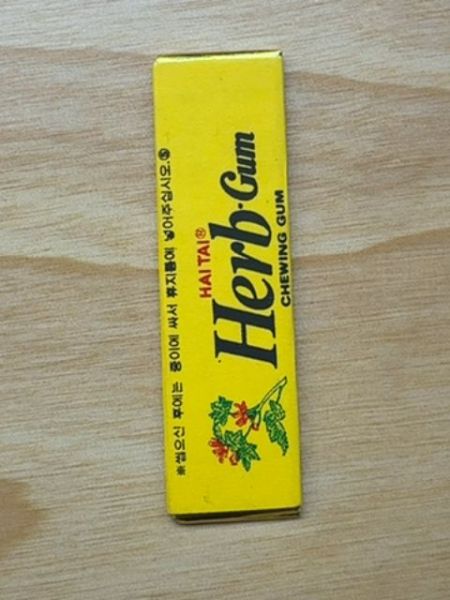
Herb Gum
Herb Gum is a chewing gum infused with herbal flavors, designed to freshen breath and provide a unique taste experience.
The typography features a bold serif font for 'Herb Gum', which gives it a classic and trustworthy feel. The use of black lettering on a yellow background ensures high contrast and readability, while the italicized 'Herb' adds a dynamic and modern touch.
The packaging features a long, slim rectangular design with a bright yellow background. There is an illustration of herbs at the bottom, enhancing the herbal theme of the product.
- Contains herbal extracts for flavor.
- Offers a unique taste for gum enthusiasts.
- Compact and easily portable packaging.